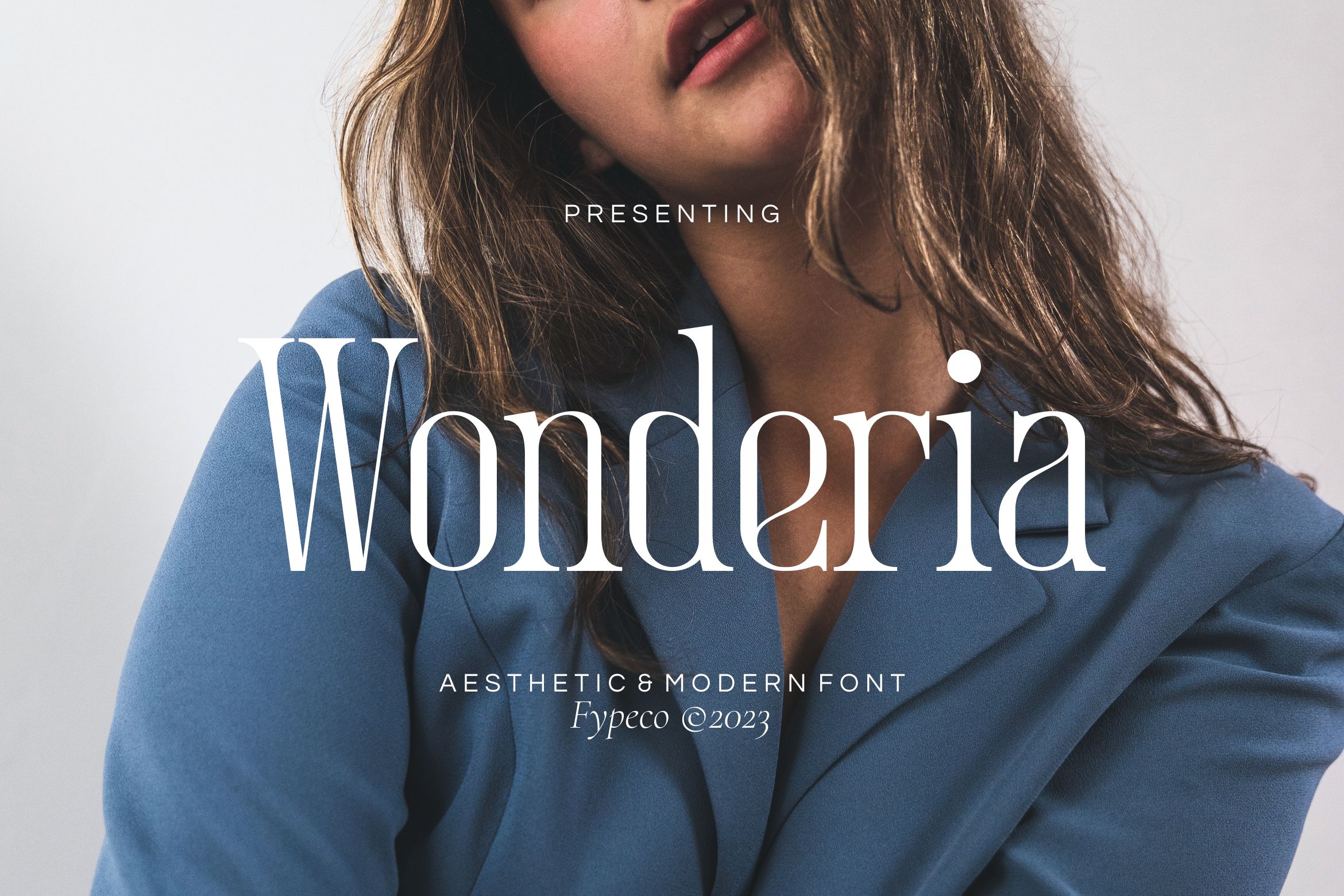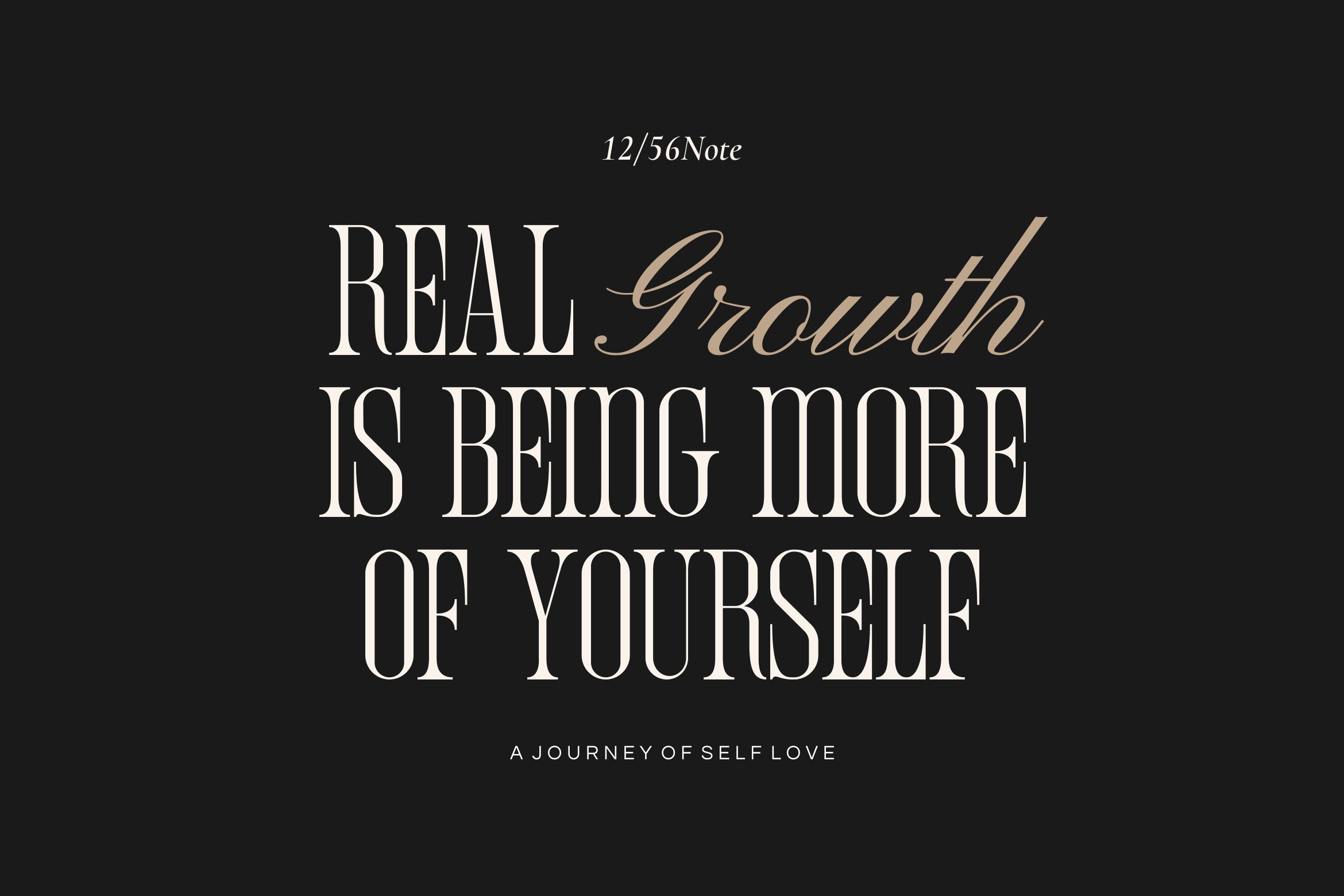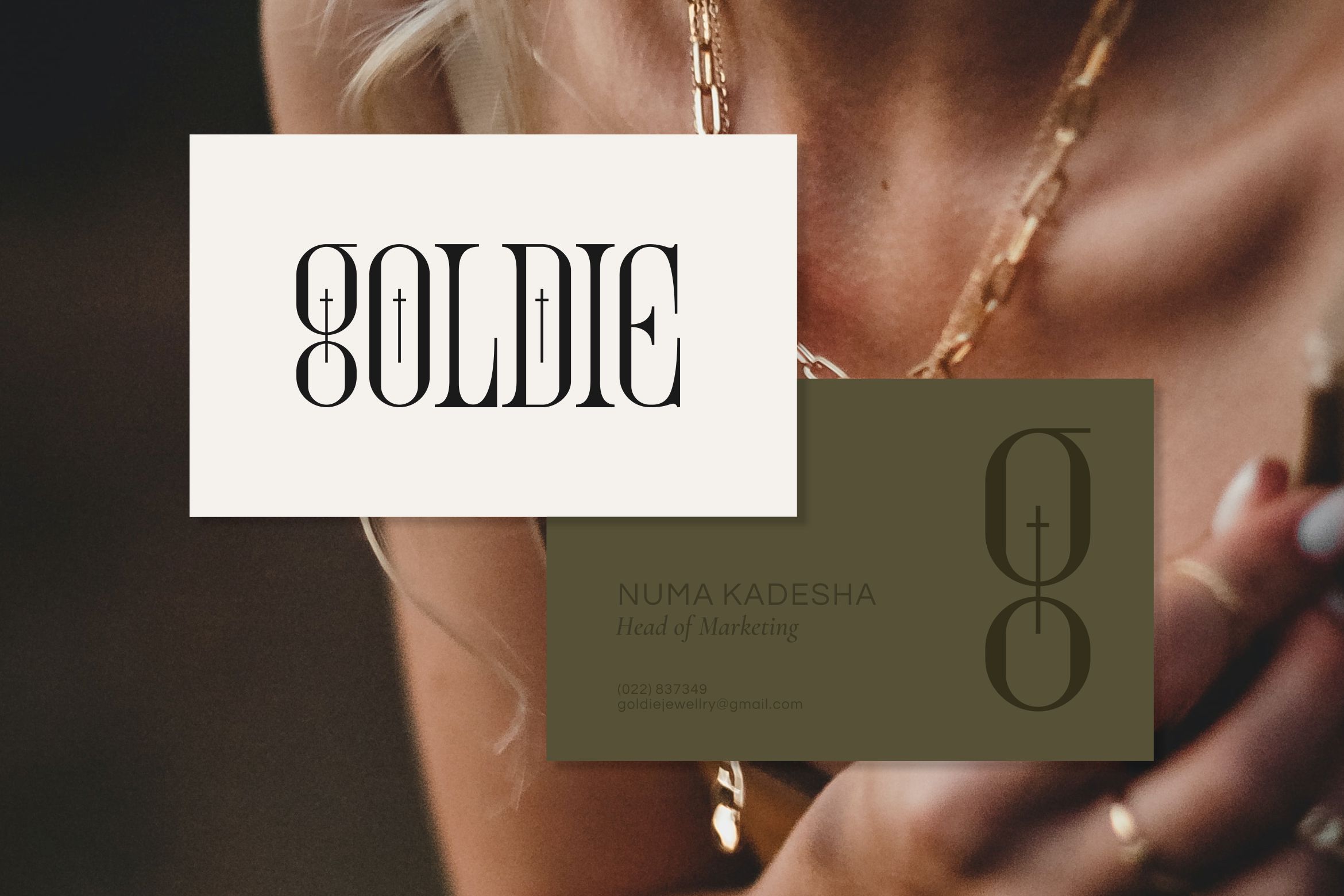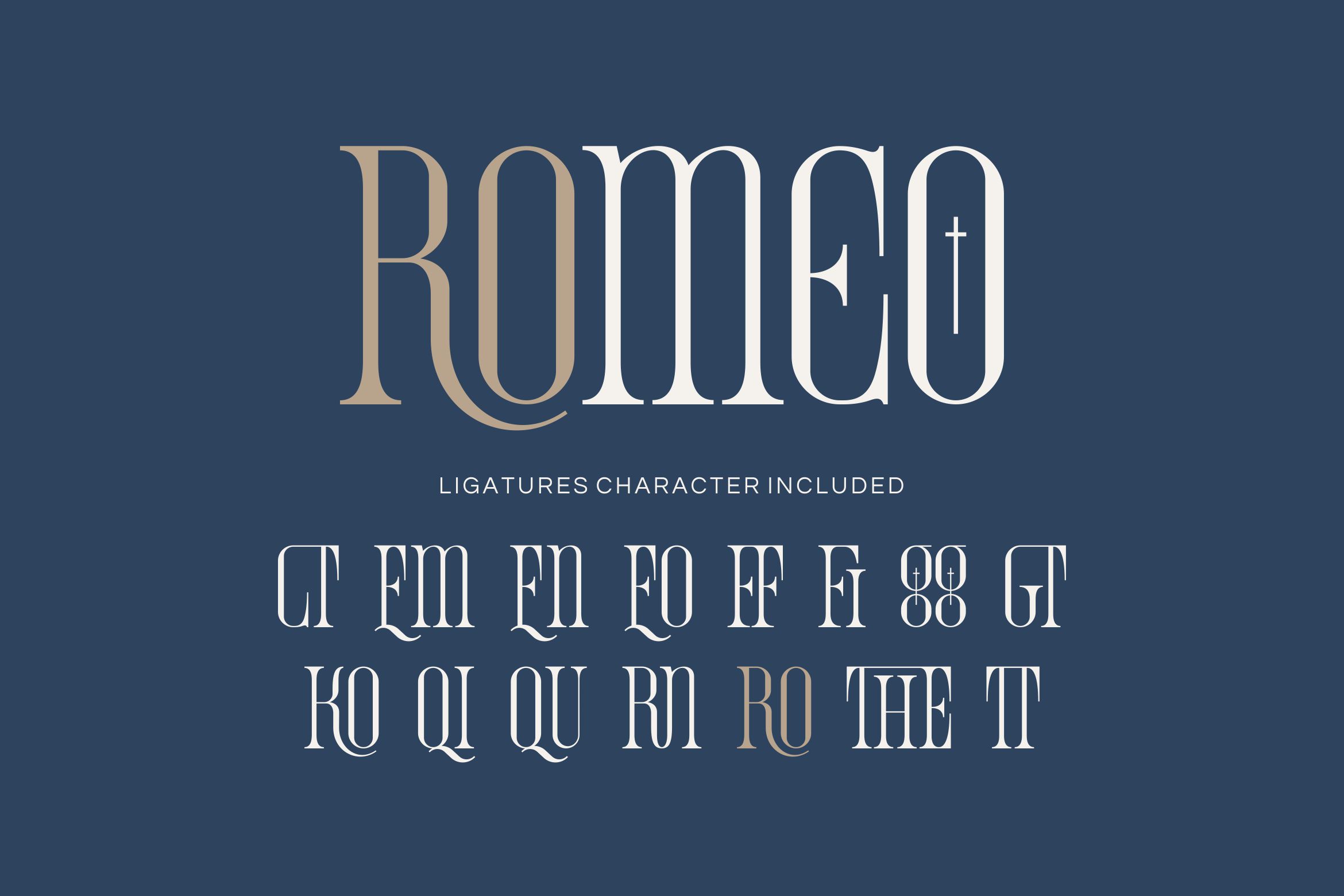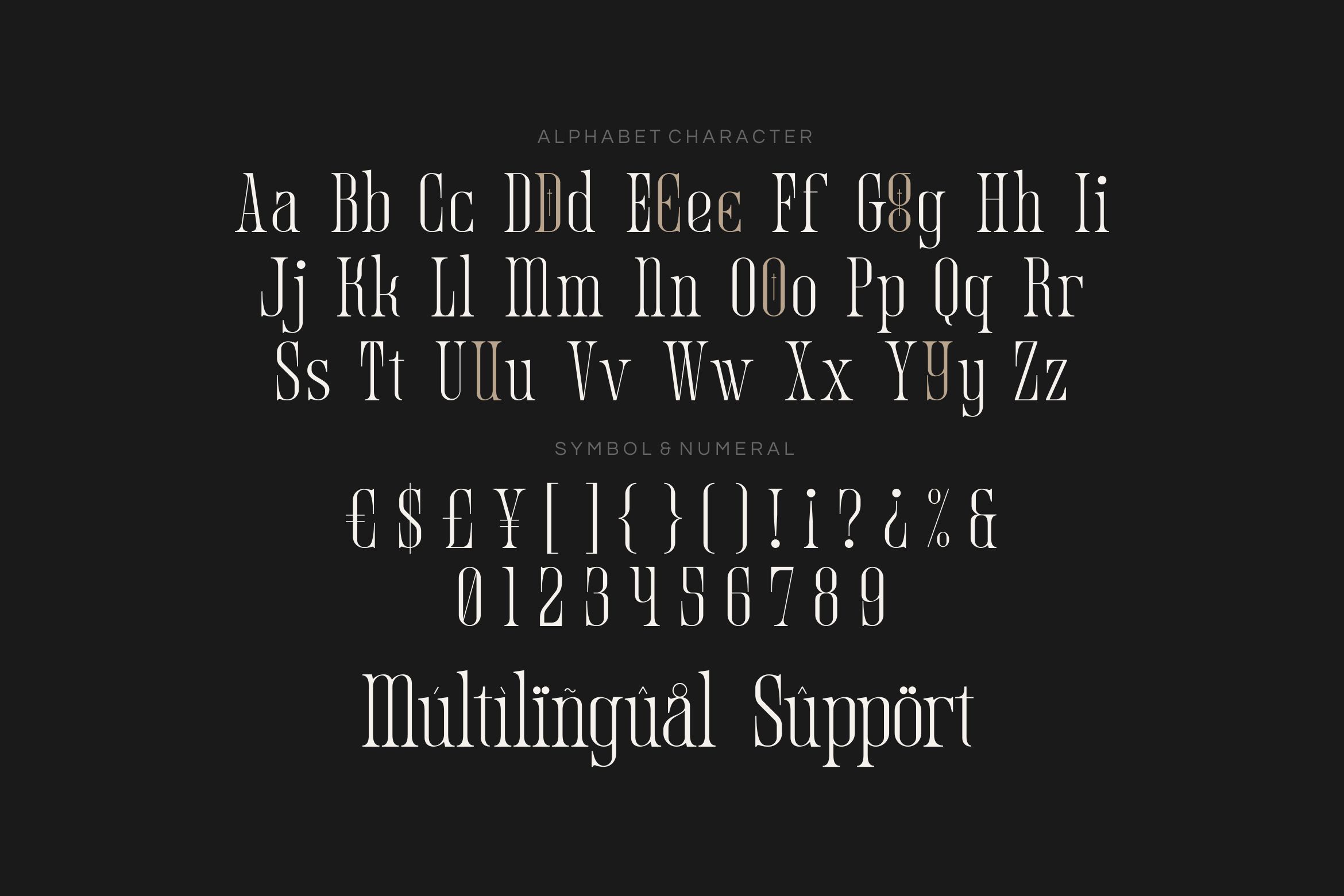
Wonderia
Wonderia is a sophisticated modern serif display font that blends high contrast strokes with graceful curves and sharp terminals. It exudes elegance, confidence, and timeless appeal—making it an excellent choice for luxury branding, fashion editorials, packaging, and creative headlines. Its tall and narrow letterforms add a dramatic flair while maintaining legibility and balance.
Equipped with multilingual support, complete symbols, numerals, and stylish ligatures, Wonderia enhances every design with a bold identity. Whether used for logotypes, magazines, quotes, or upscale product labels, Wonderia delivers visual impact with a vintage touch reimagined for contemporary aesthetics.